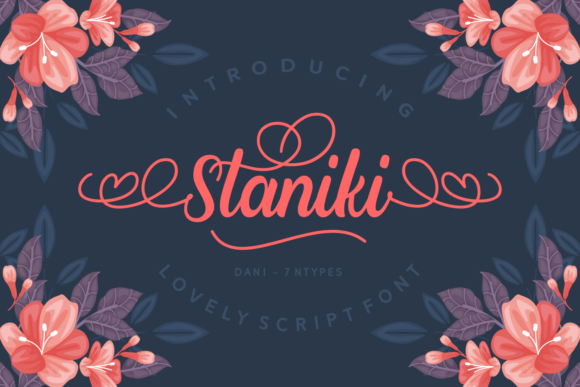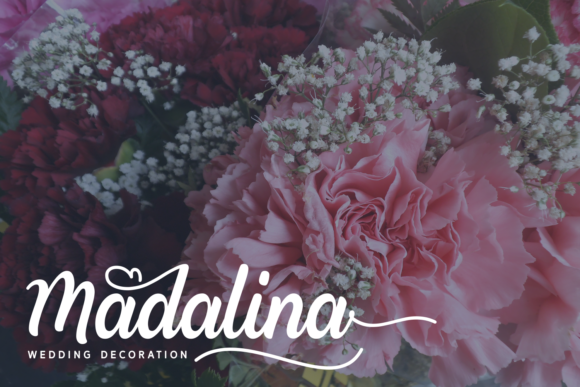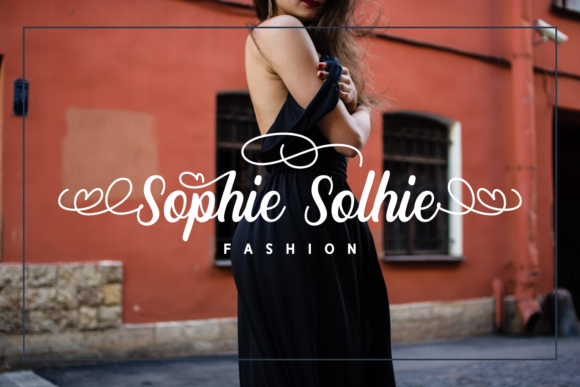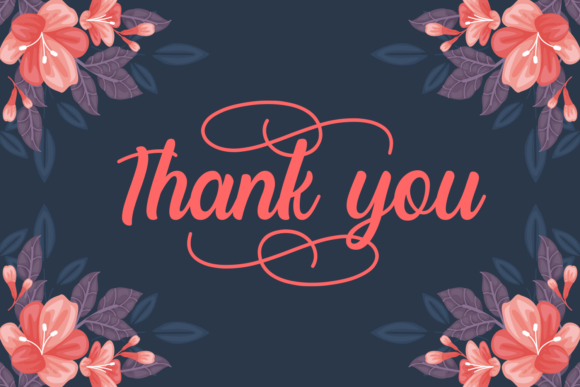
Staniki Font
About Staniki Font
The Staniki is an amazing script font. It includes lovely swashes and beautiful alternates which can be used to give your design an elegant, yet striking look.